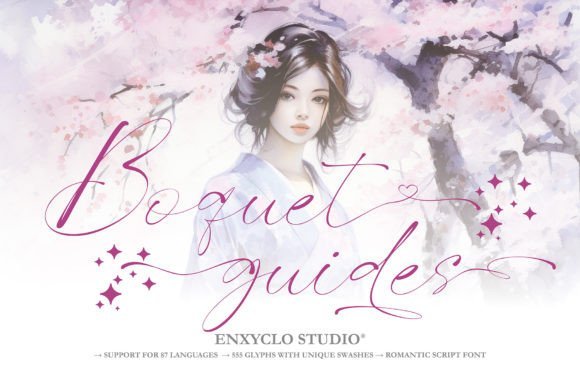
The Perfect Match for Your Creative Vision: Bouquet Guides Font Font
Do you remember the rush of excitement when you stumbled upon the perfect font for a project? The moment when all your design elements came together in harmony, and your creation truly shone? That feeling is what Bouquet Guides Font Font is all about. This stunning script font is designed to elevate your creative ideas to new heights, making it a must-have in any designer’s arsenal.
Bouquet Guides Font Font is a masterfully crafted romantic and unique script font, perfect for a wide range of applications, from wedding designs and romantic events to headlines, billboards, and branding. Its versatility, combined with its PUA encoded features, makes it an incredibly valuable asset for designers. With Bouquet Guides Font Font, you’ll be able to access all the glyphs and swashes with ease, giving you the freedom to unleash your creativity.
Bouquet Guides Font Features
- Unique Characteristics: This font features a unique, hand-drawn design with intricate details and subtle texture, giving it a distinctive and elegant look. The font is ideal for use in high-end branding, advertising, and editorial projects.
- Font Style: The font is available in a single style, making it easy to use in various design projects. The font style is characterized by its elegant and refined look, making it suitable for use in high-end branding and advertising projects.
Bouquet Guides Font Review
As a designer, I was excited to dive into the Bouquet Guides Font and see what it had to offer. Overall, I was pleasantly surprised by its unique charm.
Here are some things that work well: ✨
- Whimsical feel**: The Bouquet Guides Font has a lovely, playful quality that’s perfect for adding a touch of personality to your designs.
- Good for titles**: The font’s bold lines and fun shapes make it ideal for headings and titles, where you want to grab attention.
- Unique style**: The Bouquet Guides Font stands out from more traditional fonts, which is great for designers looking to add some visual interest to their work.
- Readability issues**: The font can be a bit difficult to read, especially at smaller sizes or in long blocks of text.
- Limited language support**: The Bouquet Guides Font may not be compatible with certain languages or character sets, which could be a problem for designers working on international projects.
Overall, I think the Bouquet Guides Font is a great addition to any designer’s toolkit. With its unique style and whimsical feel, it’s perfect for adding a touch of personality to your designs. Just be sure to use it judiciously, especially when it comes to readability and language support.
To get the most out of the Bouquet Guides Font Font, use it for:
- Floral-themed designs and illustrations
- Victorian-era inspired designs
Remember to adjust the font size and style to achieve the desired look and feel for your design.